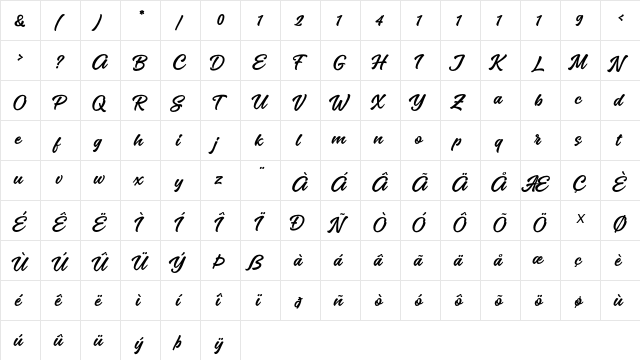
Lumpia Brush Free Regular
| Foundry | Sarwo Edi |
| Designer | Sarwo Edi |
Design Context for Lumpia Brush Free Typeface
Lumpia Brush Free brings a calligraphic fluidity to the page — its connecting strokes and expressive curves give it an unmistakably human quality.
Font Pairing: Combine Lumpia Brush Free with a simple geometric sans for maximum contrast — the tension between flowing curves and clean structure is a classic typographic pairing.
Pro Tip: Pair Lumpia Brush Free with a clean sans-serif for supporting text. The contrast between fluid script and geometric structure creates an elegant typographic hierarchy.